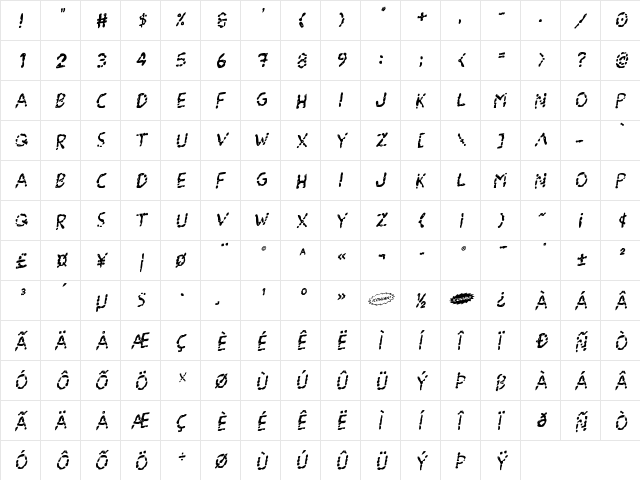
Blood Drenched Rotalic Regular
Design Context for Blood Drenched Rotalic Typeface
Blood Drenched Rotalic leans into the macabre with letterforms designed to disturb and intrigue in equal measure.
Perfect for anything that needs to unsettle — game titles, horror branding, and macabre invitations.
Font Pairing: Pair with a clean neutral sans-serif for body copy to let Blood Drenched Rotalic's character lead without overwhelming the composition.
Pro Tip: Use Blood Drenched Rotalic at larger display sizes for maximum impact. Consider generous tracking to let the disturbing character of each letterform breathe.